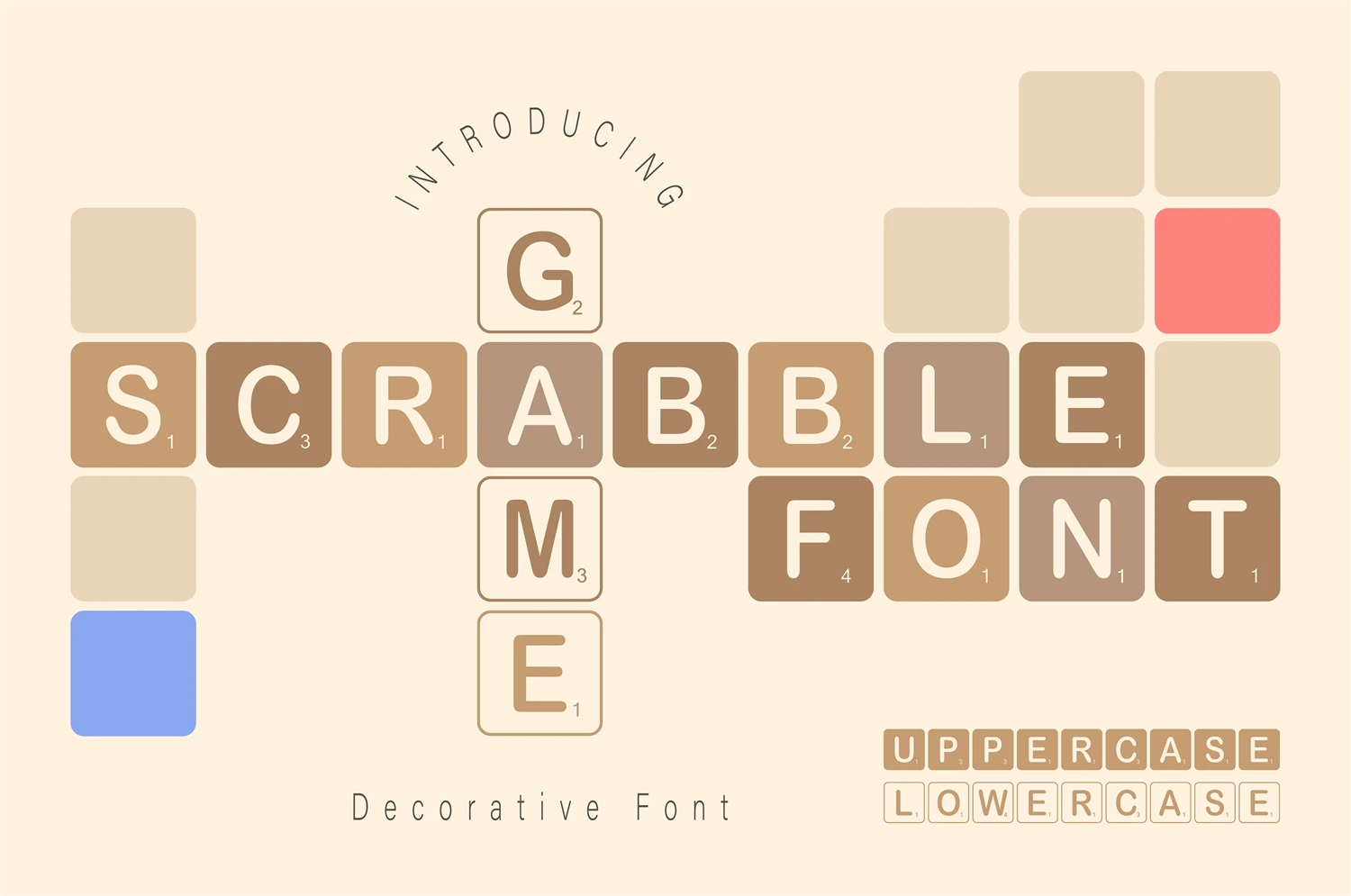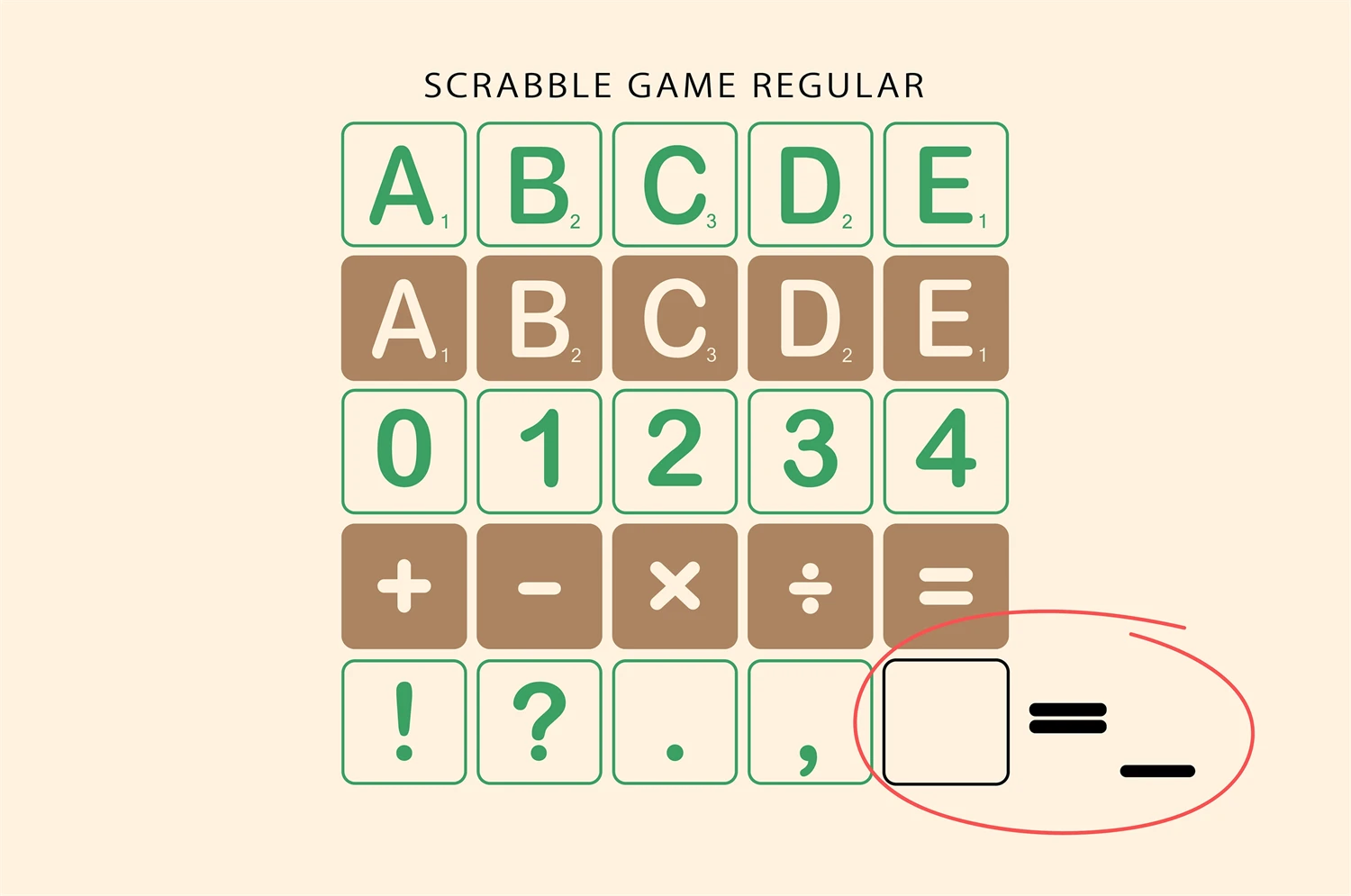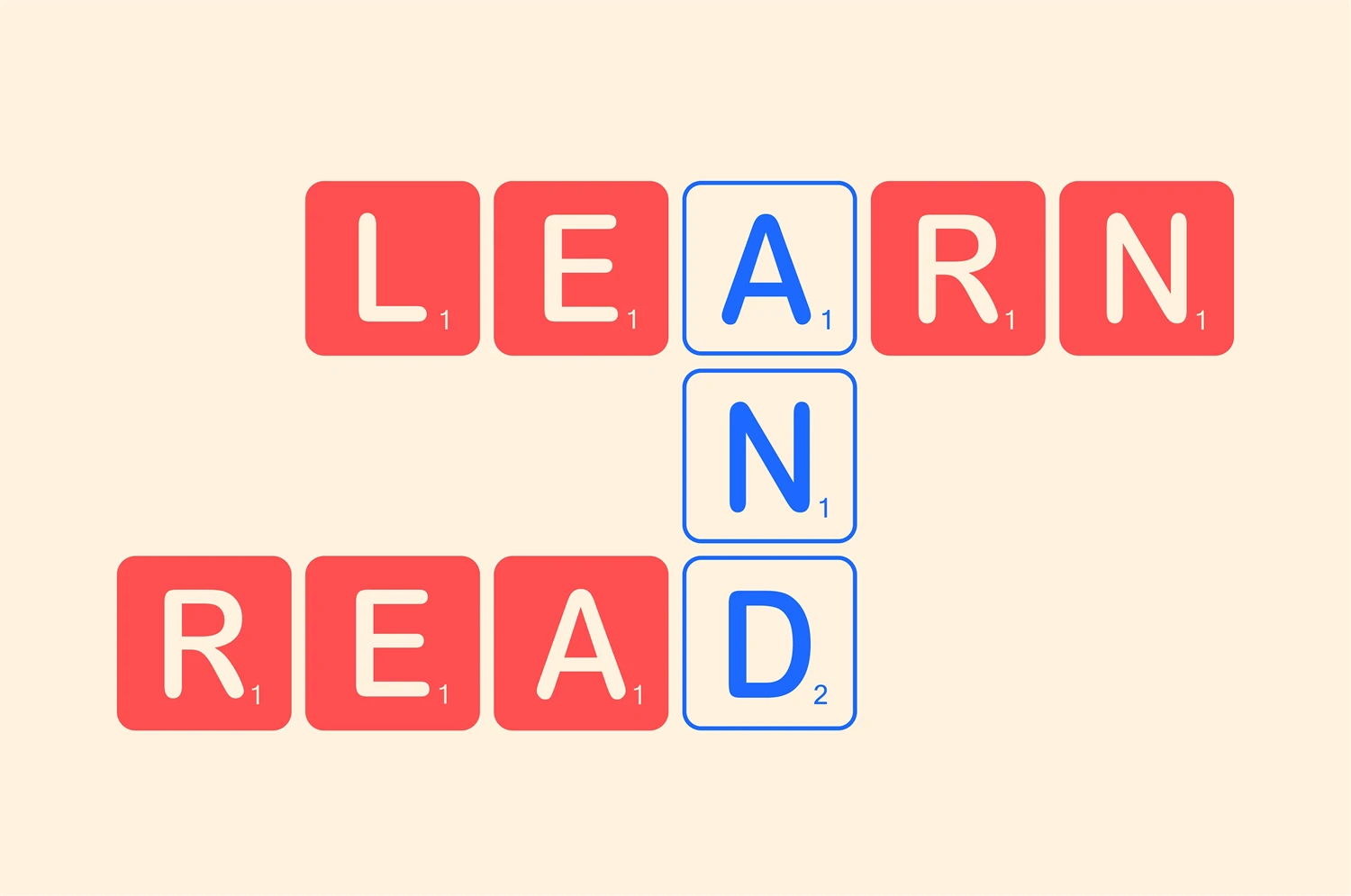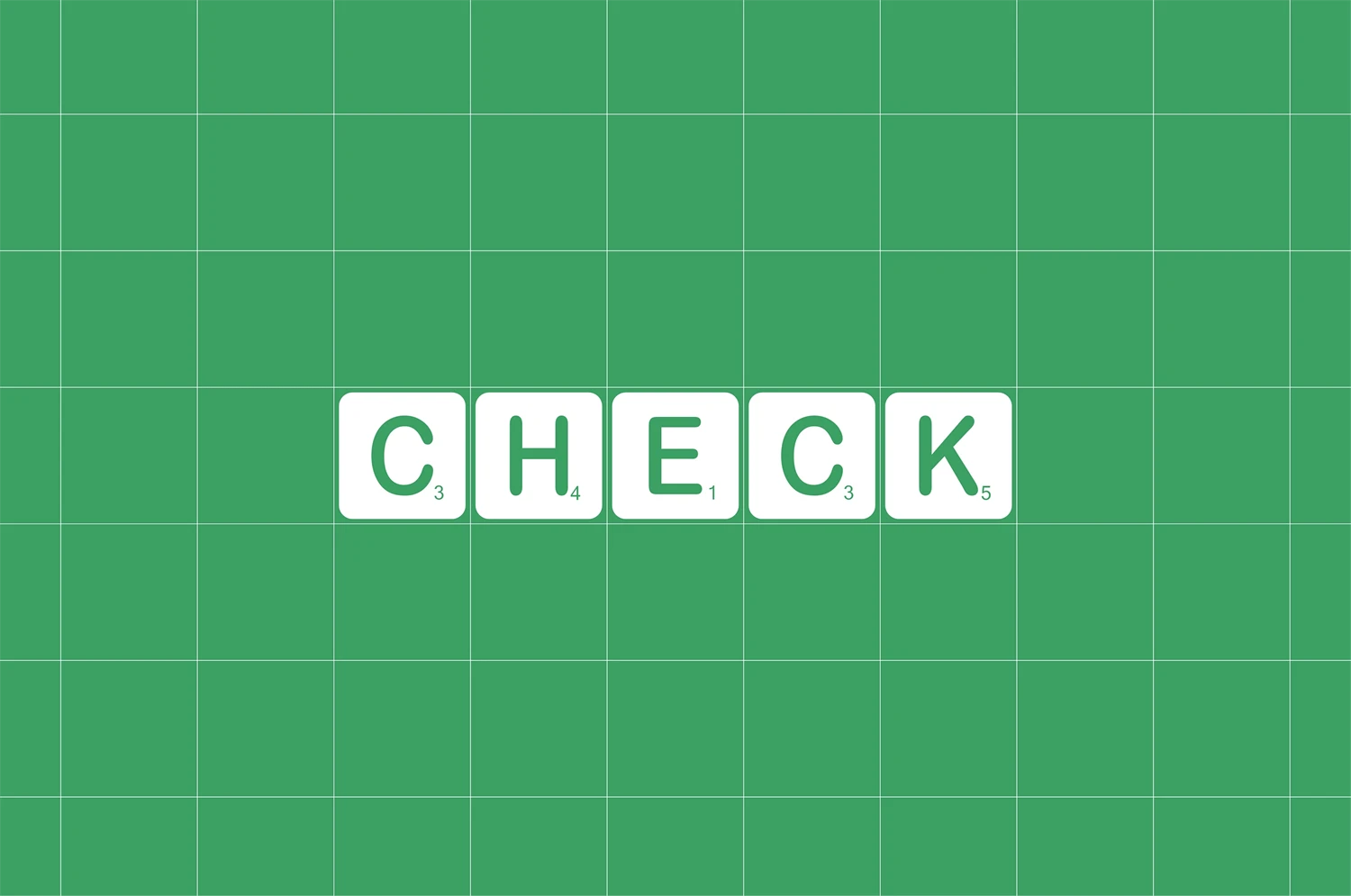
Scrabble Game is learning and play font based on a popular word board game. Easy to use with outline in lowercase, silhoutte in uppercase comes with number and symbol. Friendly and playful with your school project, scrapbook, worksheet, poster, etc. Add it to your fonts library, and it will bring any of your DIY projects.